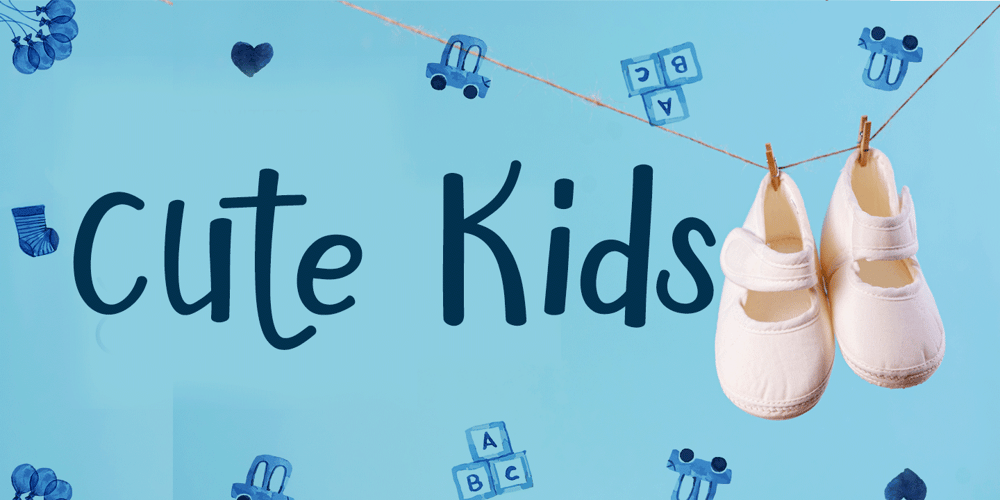
Cute Kids Font Family was designed by Marwah and published by BBA Key. Cute Kids contains 1 styles and family package options. Cute Kids New fresh & modern style with handmade calligraphy, decorative characters and dancing lineage! So wonderful are invitations like greeting cards, branding material, business cards, quotes, posters, and more !!Uppercase & lowercase International signature & symbol Punctuation Support & PUA number Unicode Style Style Alternative StyleIf you do not have programs that support OpenType features like Adobe Illustrator and CorelDraw X Versions, you can access all alternative flying machines using Font Book (Mac) or Character Map (Windows)